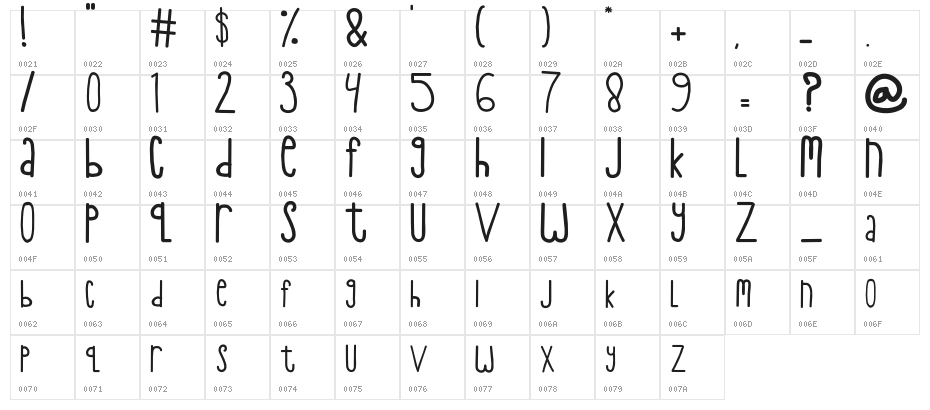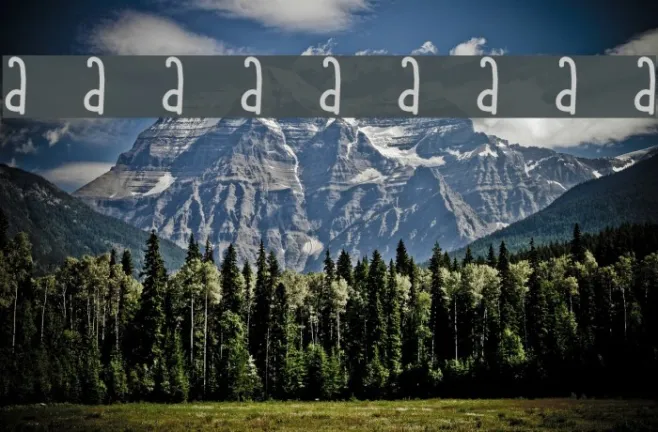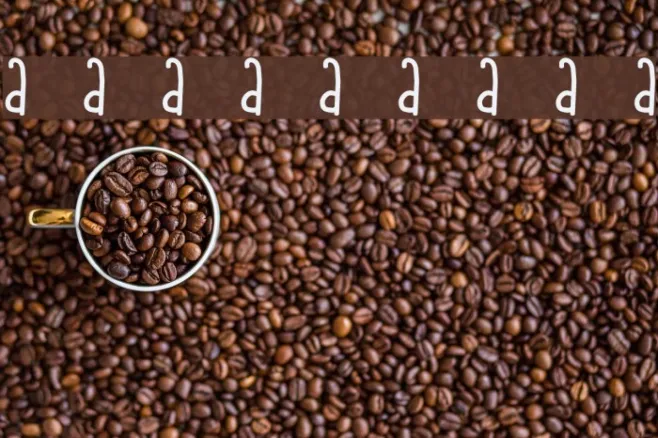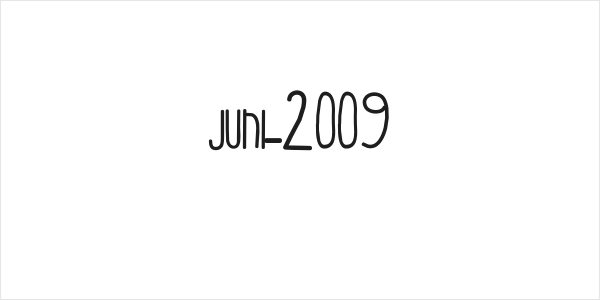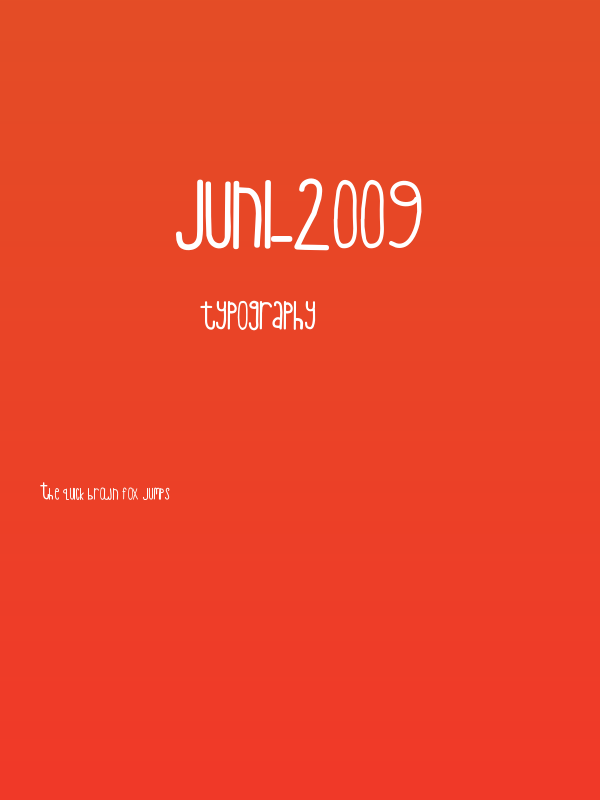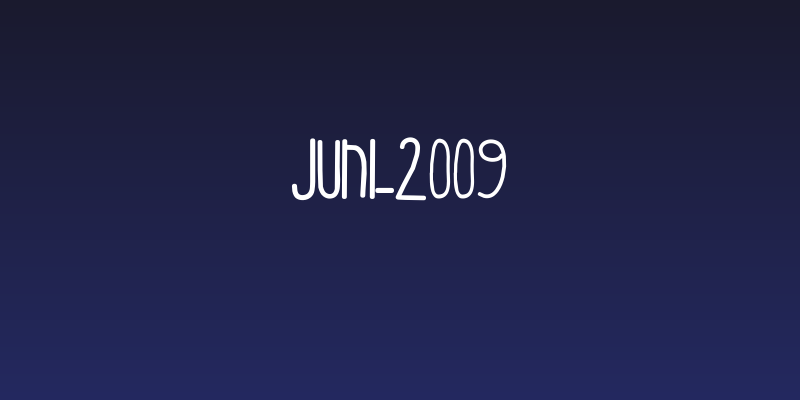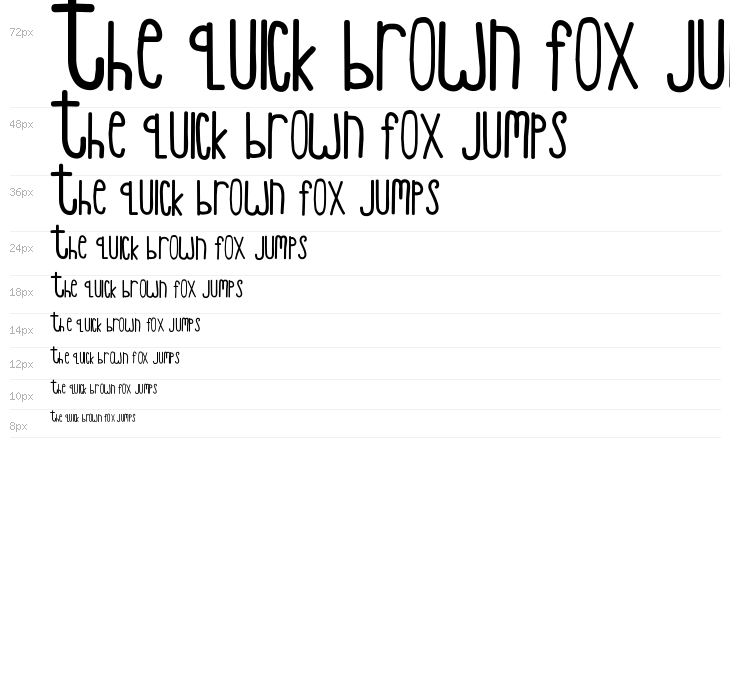
juni-2009 Font
juni-2009 Description
This font features a playful and quirky design with a handwritten style. Each character has a unique, slightly irregular shape that adds a sense of whimsy and personality. The strokes are consistent in thickness, giving the font a cohesive look, while the slight slant and uneven baseline contribute to its informal and casual feel. The font is well-suited for creative projects that require a touch of individuality and charm.
Use CaseLogos, Headlines, Creative projects
Proposed ProjectsIdeal for greeting cards, children's books, playful branding, and creative social media graphics.